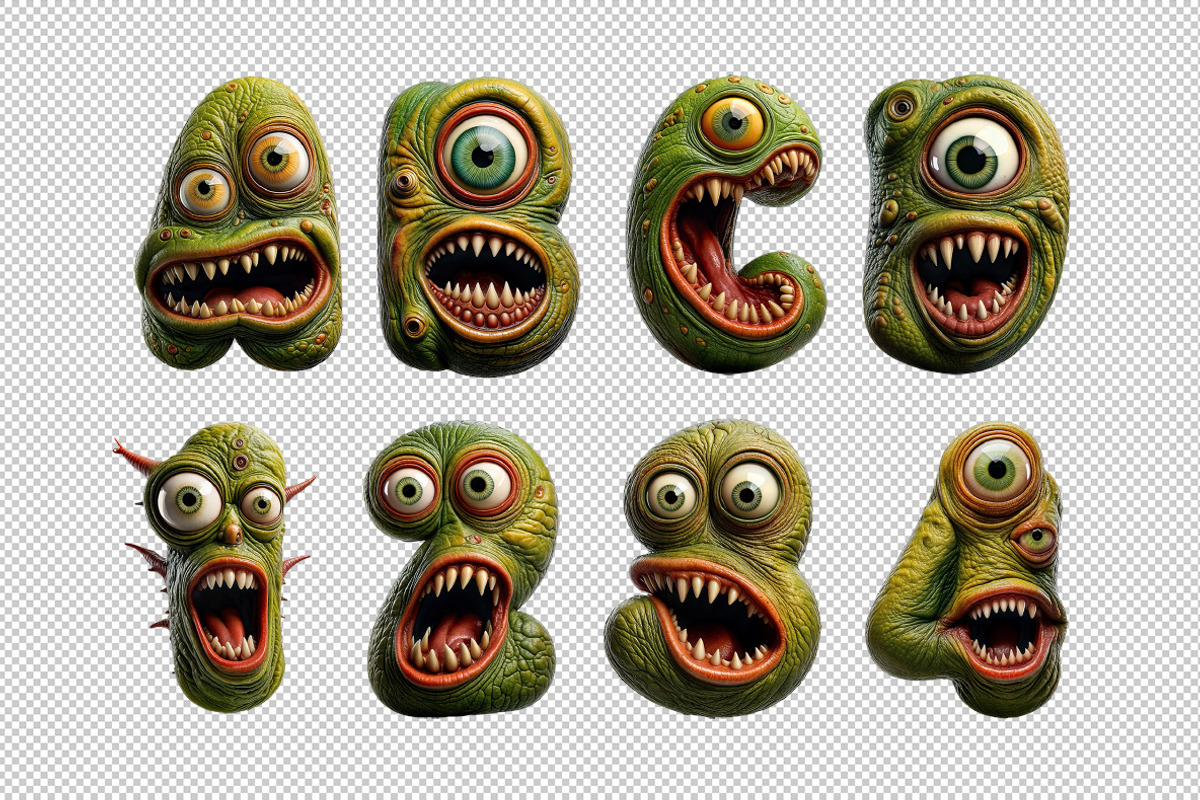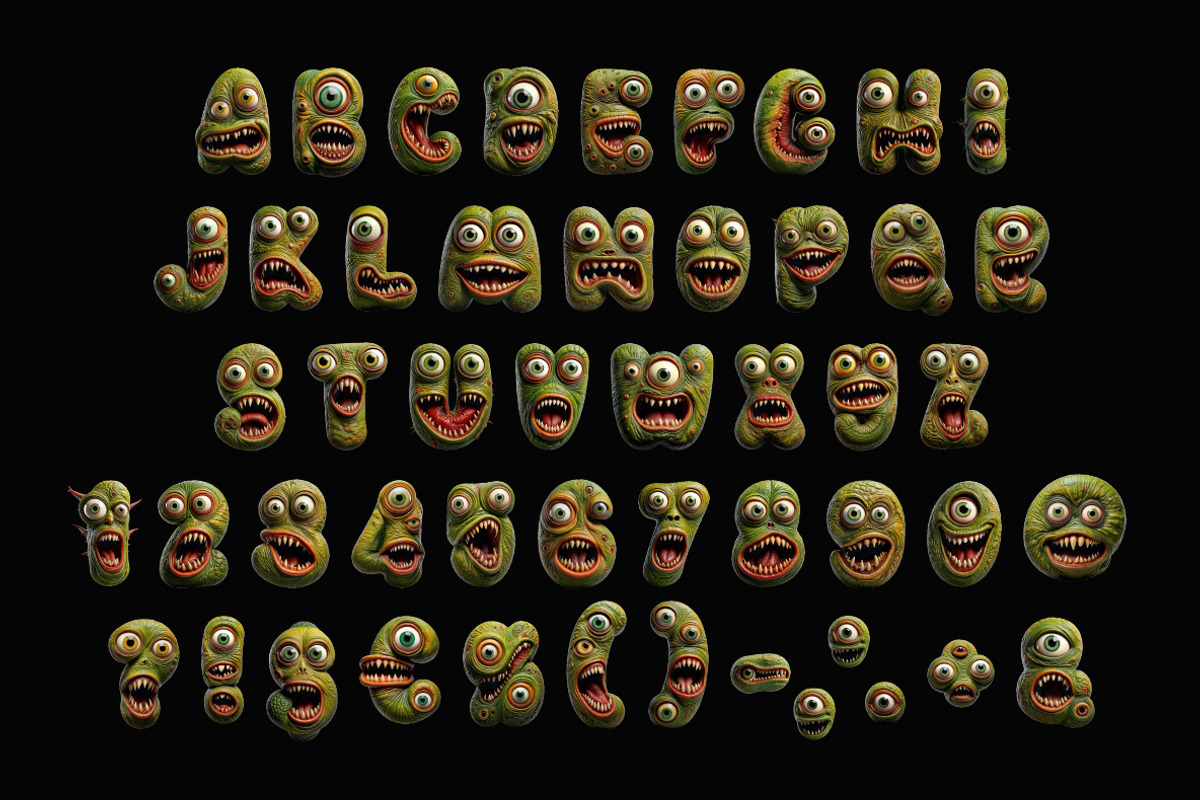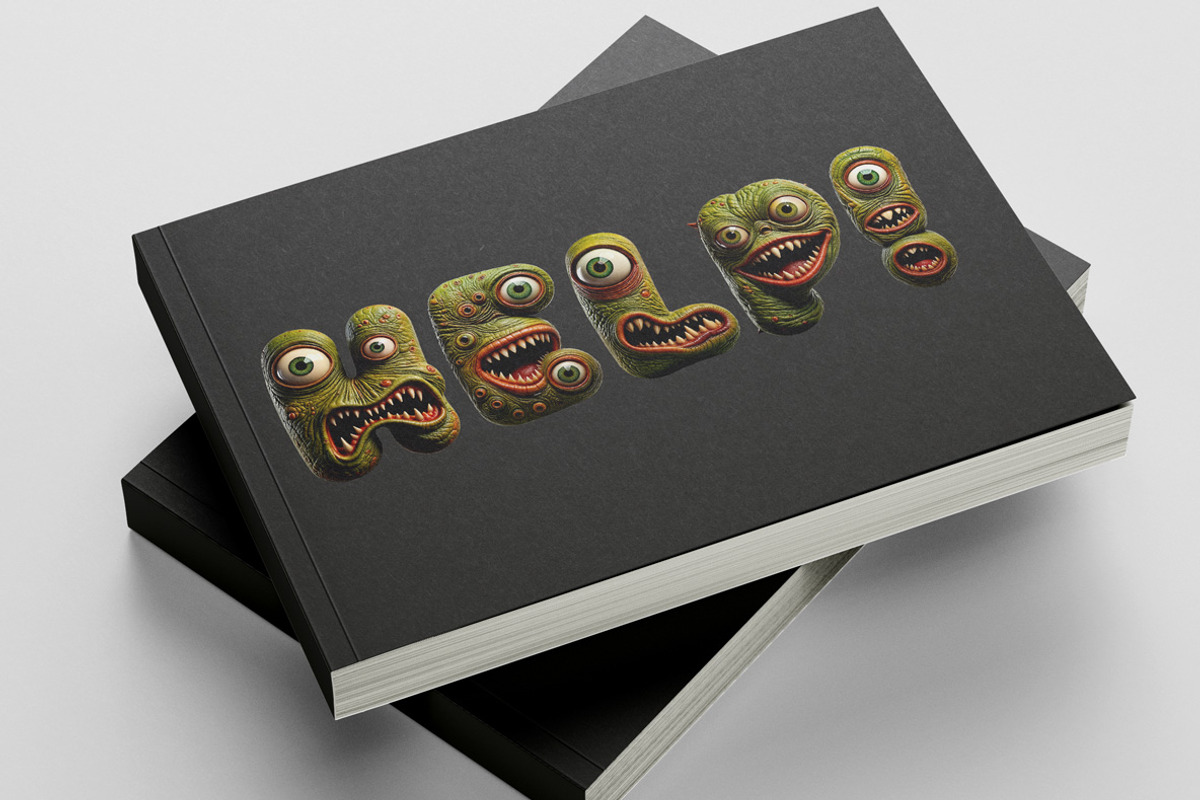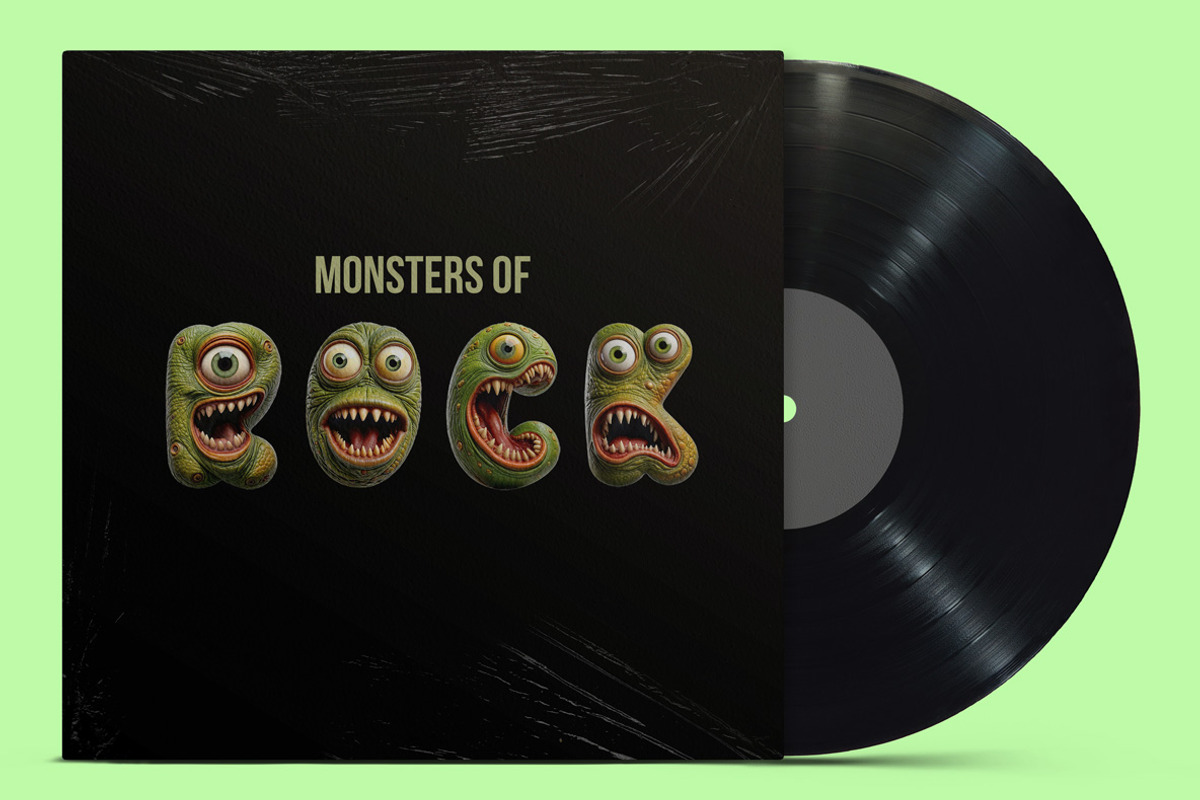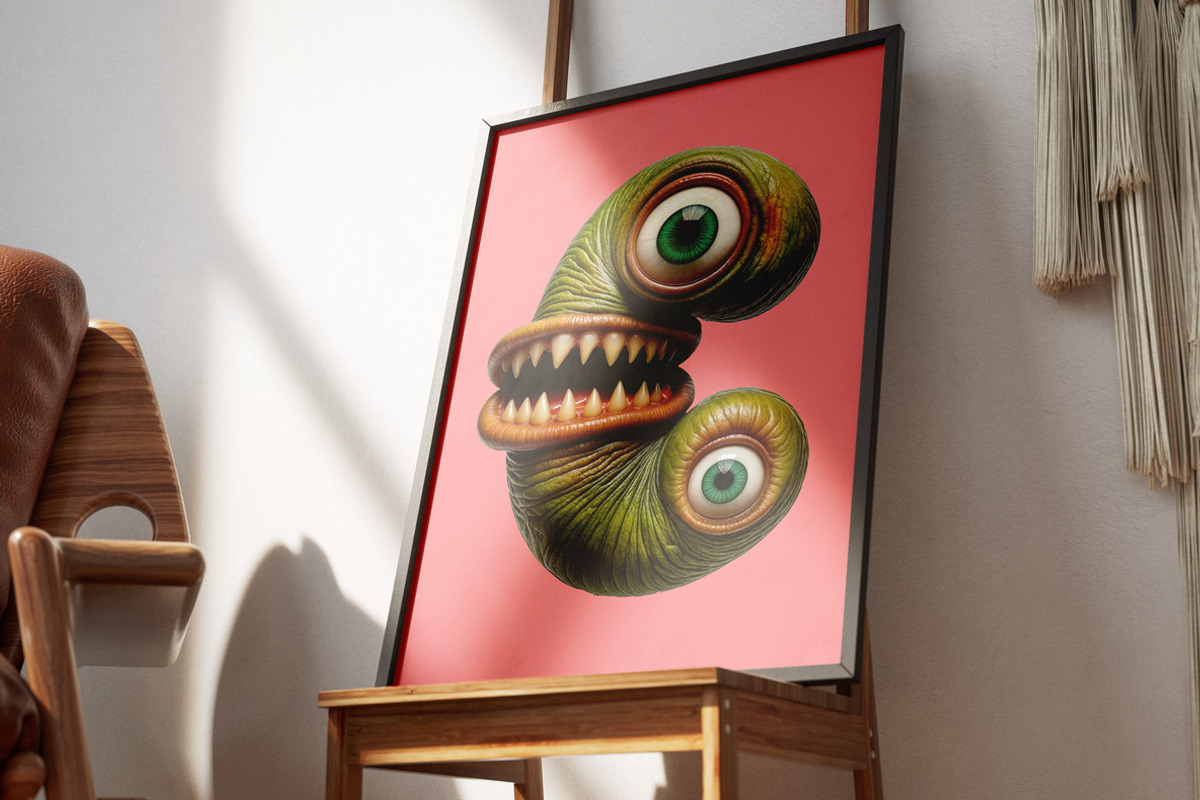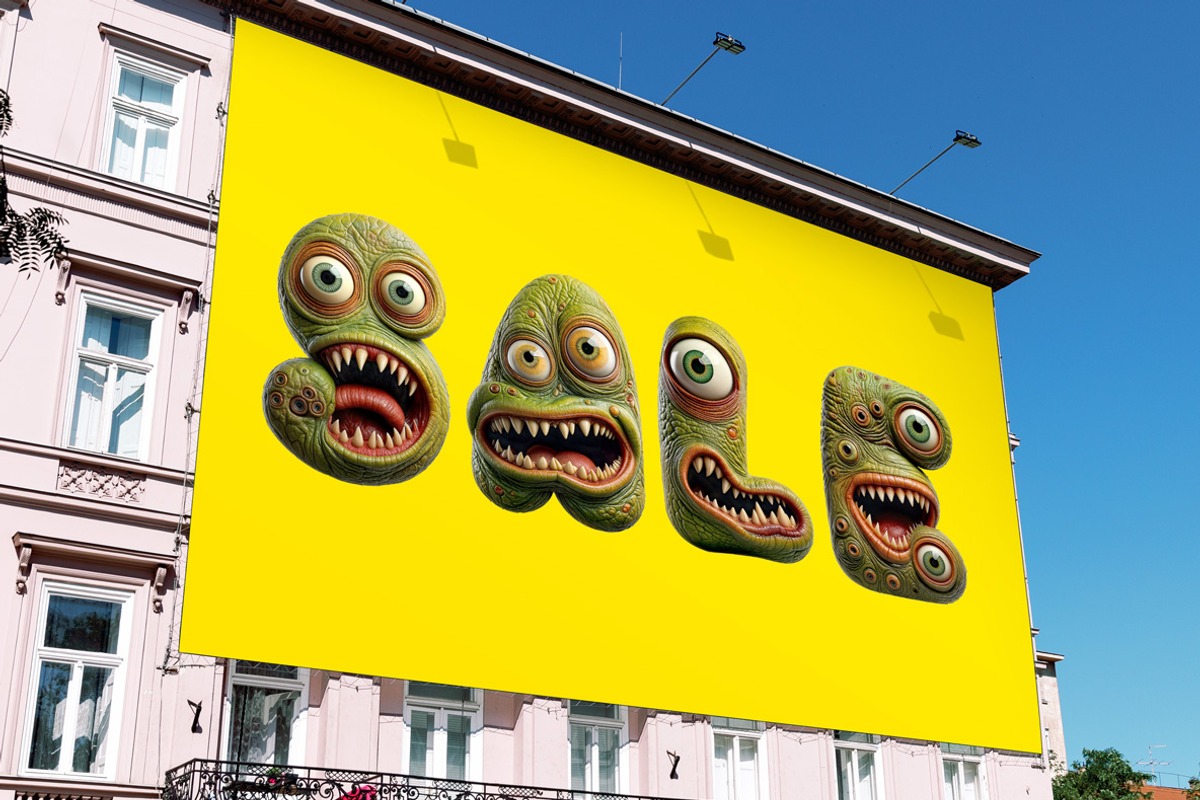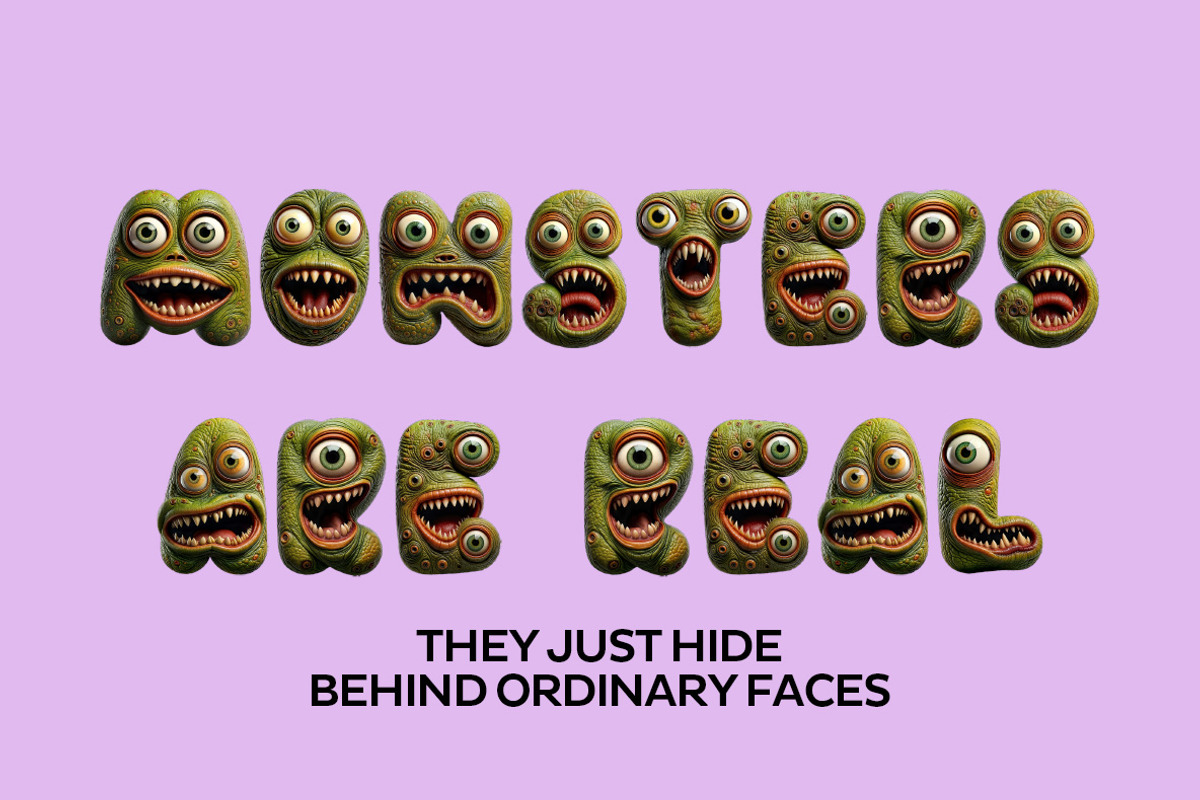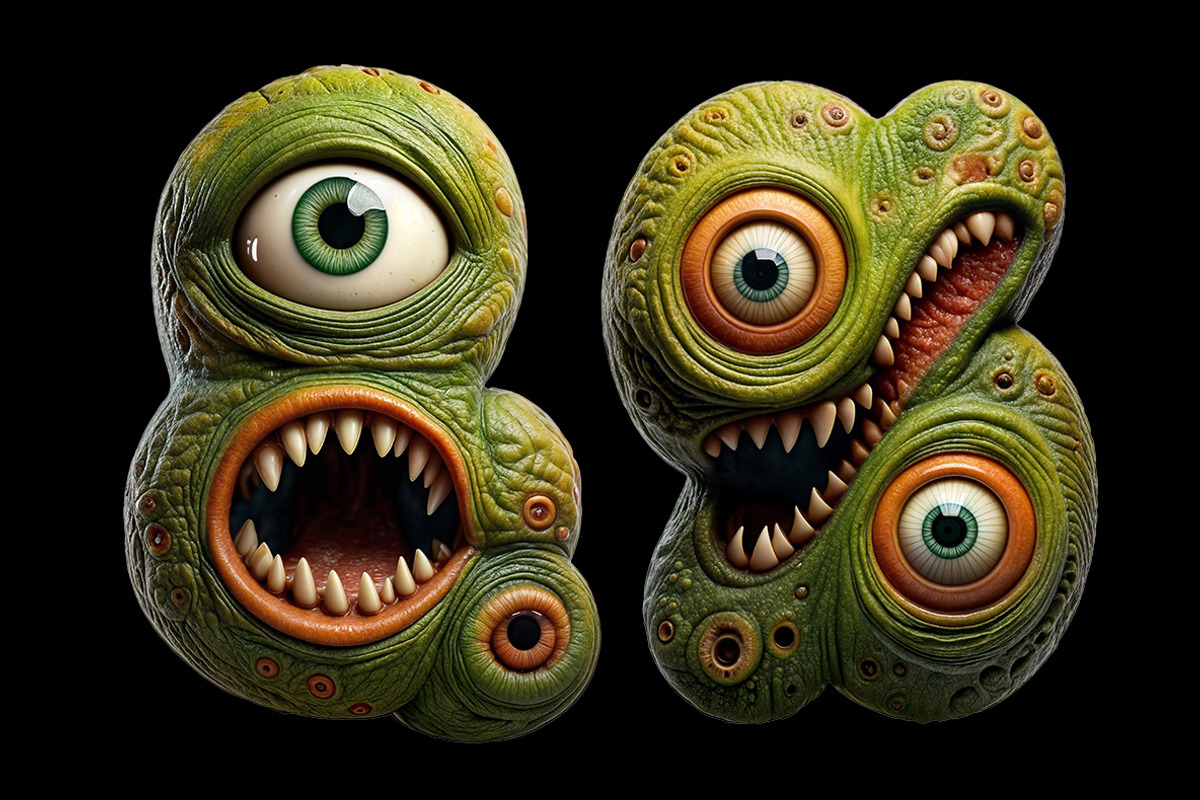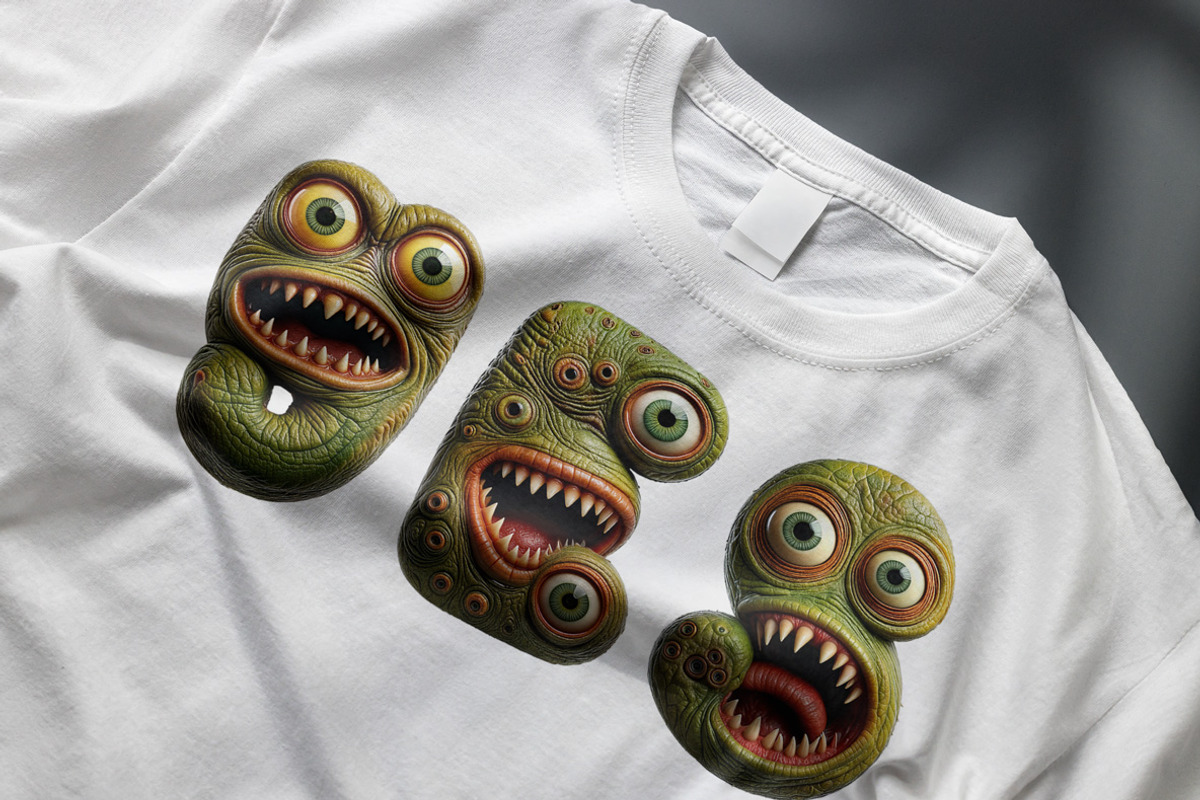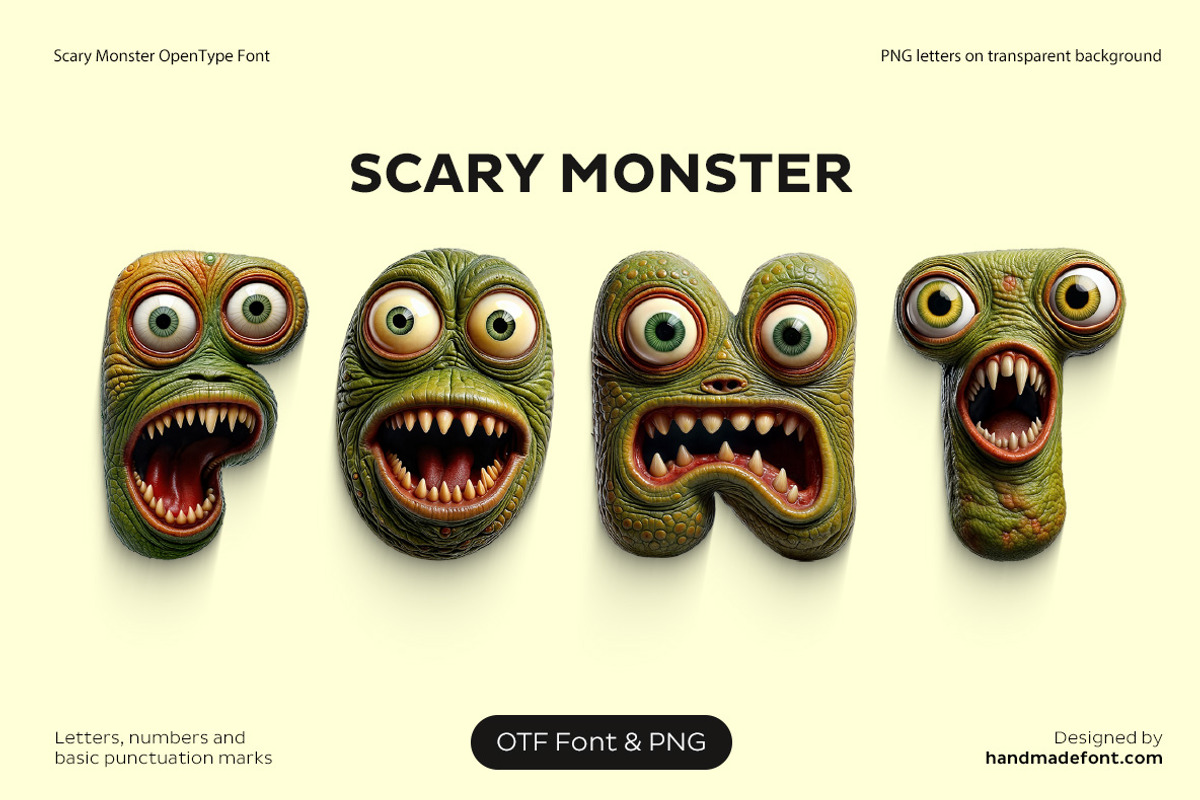
Scary Monster Font
Scary yet hilarious, the Scary Monster Font is a wild mashup of creepy and goofy — perfect for those who love their monsters with a side of laughter. Each letter in this monster alphabet oozes personality, with green, bumpy skin, warts, and boils galore. These monster-inspired shapes come alive with mismatched eyes — one too big, one too small — and wide, toothy grins that are more comical than carnivorous. It’s monster typography at its most animated — weird, wacky, and wonderfully spooky. Whether you're summoning a scream or a snicker, this monster lettering transforms every word into a parade of peculiar, cartoon creatures!
A high definition OpenType Font. Contains uppercase characters, numerals and basic punctuation. (Draw height roughly 800 pixels). All letters and glyphs that comprises this font you can see on the preview.
- Letters : A B C D E F G H I J K L M N O P Q R S T U V W X Y Z
- Numbers : 0 1 2 3 4 5 6 7 8 9
- Others : ! ? - . ' $ € % & #